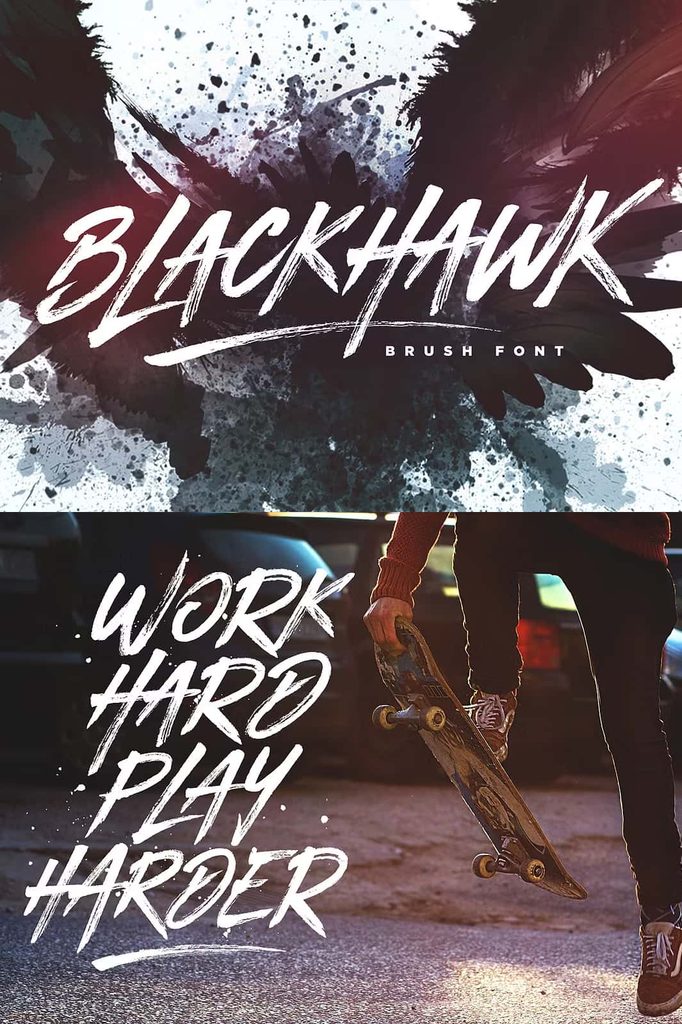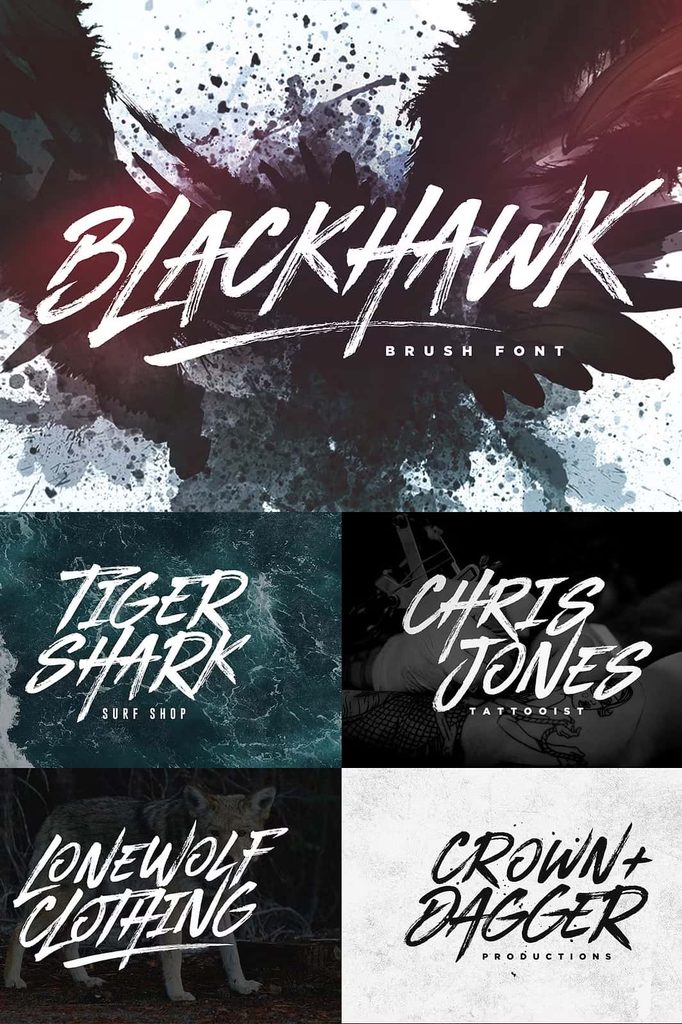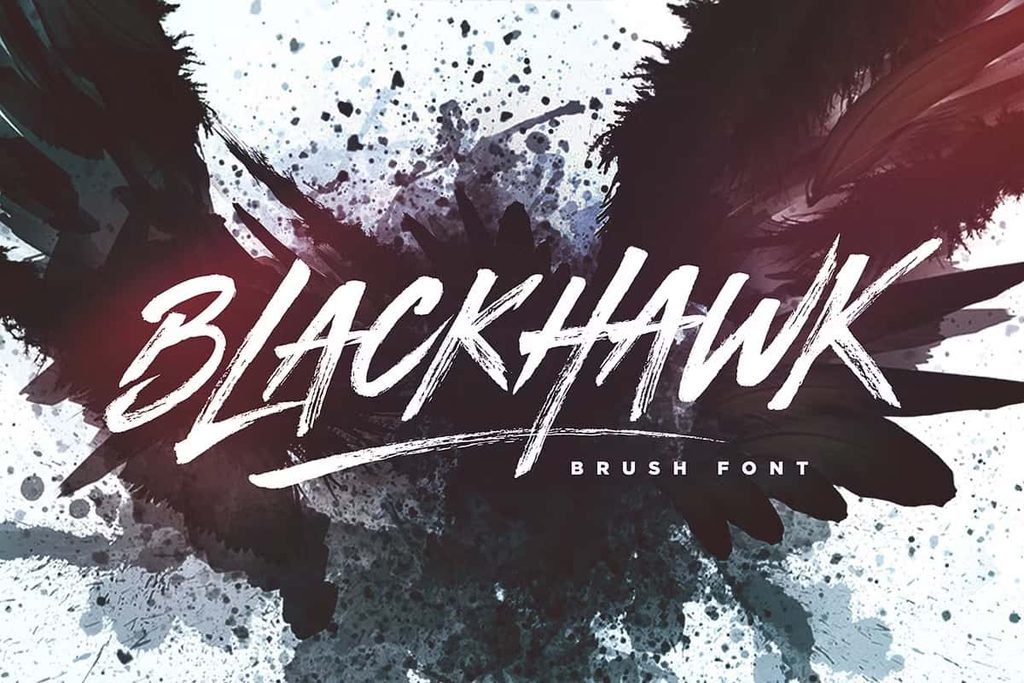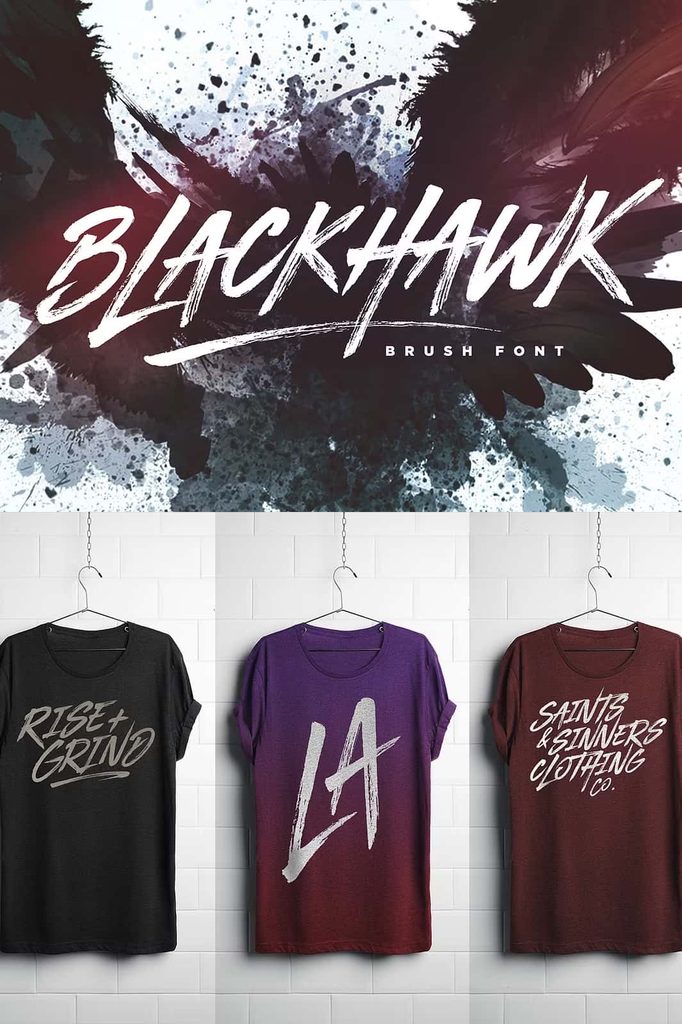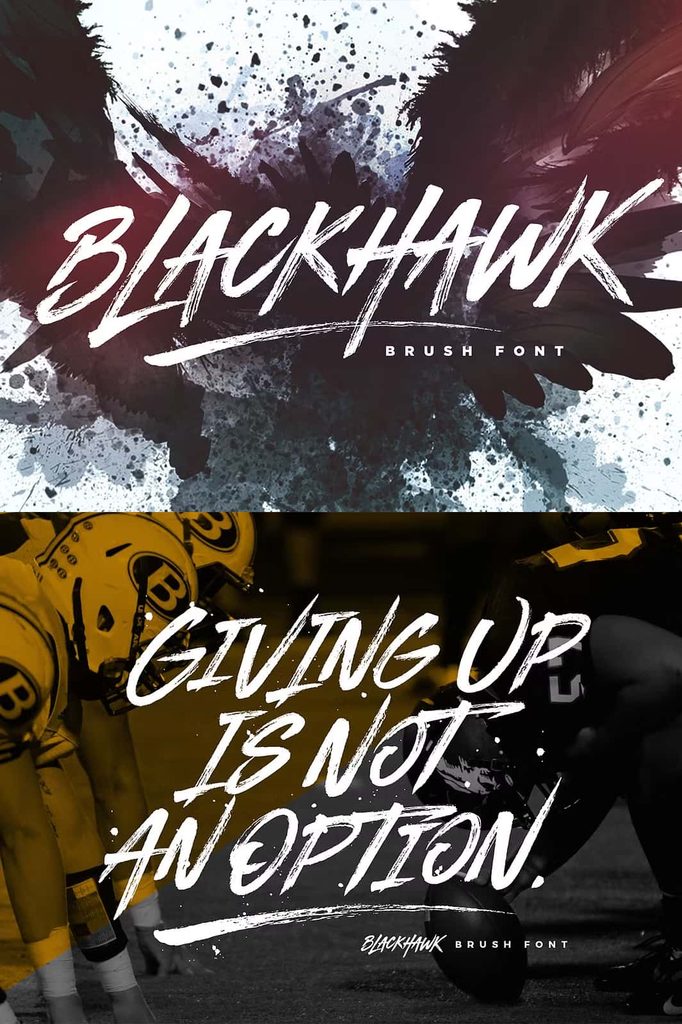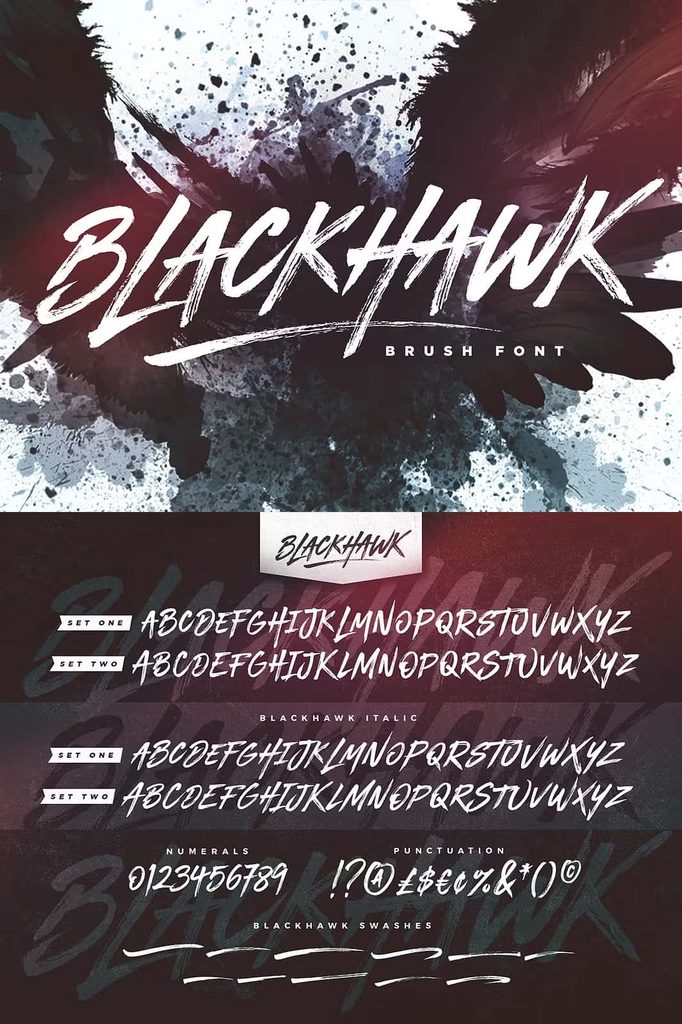
BLACKHAWK Brush Font
BLACKHAWK Brush Font brings explosive energy and a bold street-inspired attitude to modern typography. Built around fast brush strokes, sharp details, and an unapologetically expressive character, this display typeface gives designers a powerful way to make words stand out. Its dynamic appearance creates the impression of movement and speed, making it an excellent choice for projects that demand confidence, action, and visual impact.
BLACKHAWK does more than simply display text. It transforms words into strong graphic elements that can drive the entire composition. The energetic brush style creates a sense of motion, while the rugged details add personality and an authentic handcrafted quality. Use it when ordinary typography feels too quiet and your project needs a stronger visual voice.
From bold logos and apparel graphics to quotes, product packaging, posters, advertising campaigns, and promotional artwork, BLACKHAWK gives your designs a typographic boost. Its street-wise personality works especially well with contemporary, urban, athletic, automotive, music, and lifestyle concepts.
A Supercharged Brush Font with Street Style
BLACKHAWK takes inspiration from fast brush lettering and energetic street graphics. Its quick strokes create a sense of movement that immediately draws attention to the text. The sharp details reinforce this effect and give the typeface a confident, aggressive edge.
The brush construction makes BLACKHAWK particularly effective for short words and phrases. Use it for brand names, headlines, slogans, quotes, product names, and other display text that needs to communicate quickly. The stronger the phrase, the more impact the typeface can create.
Its street-inspired character also gives designers plenty of room to experiment. Combine BLACKHAWK with bold photography, rough textures, graffiti-inspired graphics, dynamic illustrations, or high-energy layouts to build a complete visual identity.
Bold Typography for High-Impact Logos
BLACKHAWK Brush Font provides a powerful foundation for logo design. Its energetic lettering can turn a simple brand name into a memorable visual mark. The fast strokes create movement, while the bold construction helps the logo remain visually dominant.
Use BLACKHAWK for streetwear labels, sports brands, music projects, creative agencies, automotive businesses, fitness brands, lifestyle companies, gaming projects, and other identities that need an energetic personality.
For a strong wordmark, keep the logo composition focused on the lettering. Experiment with scale, positioning, and spacing to create a dynamic silhouette. You can also combine BLACKHAWK with a clean sans serif for secondary information such as taglines or descriptors.
Perfect for Apparel and Streetwear
The energetic character of BLACKHAWK makes it an excellent choice for apparel design. Use it for T-shirt graphics, hoodies, jackets, caps, stickers, patches, posters, and other merchandise. Its bold brush appearance can create the kind of strong visual statement that works naturally in streetwear and urban-inspired design.
Use short phrases, slogans, names, or expressive words to create memorable apparel graphics. Combine the lettering with illustrations, distressed textures, badges, or graphic shapes to develop a complete composition.
For a modern streetwear aesthetic, experiment with oversized typography and unexpected placement. You can also create layered compositions by combining BLACKHAWK with photography or supporting graphic elements while keeping the main lettering as the focal point.
Dynamic Quotes and Poster Designs
BLACKHAWK works particularly well for quotes and motivational statements. Its energetic brush strokes can make short phrases feel active, confident, and powerful. Use it for inspirational graphics, promotional posters, event artwork, music posters, and social media content.
When designing quote graphics, select a short phrase that benefits from strong visual emphasis. Use BLACKHAWK for the main statement and pair it with a simple supporting font for the author name or additional information.
The typeface can also create dramatic poster headlines. Use large lettering, strong contrast, and carefully controlled spacing to create a composition that immediately captures attention.
Give Product Packaging a Typographic Boost
BLACKHAWK can help product packaging stand out through bold and energetic typography. Use it for product names, labels, promotional phrases, special editions, stickers, and packaging headlines.
The street-wise character can complement products aimed at younger, energetic, adventurous, or creative audiences. It works especially well for sports products, apparel, beverages, accessories, lifestyle goods, music-related merchandise, and other products that need a strong visual identity.
Pair the brush lettering with simpler supporting text to keep product information organized. Let BLACKHAWK communicate the personality of the product while a clean typeface handles descriptions, specifications, or other practical details.
If your project needs typography with attitude, movement, and unmistakable visual energy, BLACKHAWK provides a strong solution. Let its bold lettering lead the composition, experiment with dynamic layouts, and use its street-wise personality to give your designs the typographic turbo-boost they need.